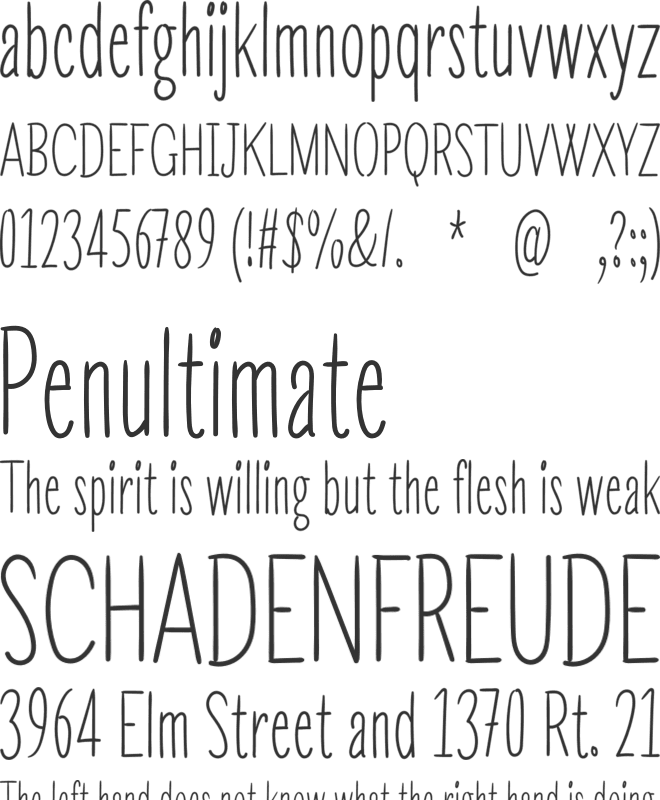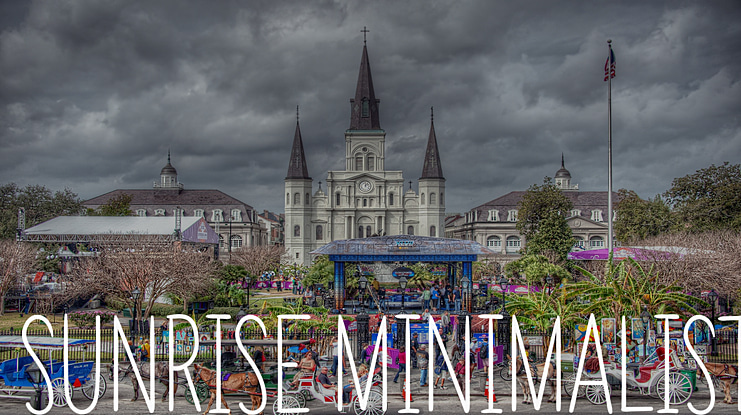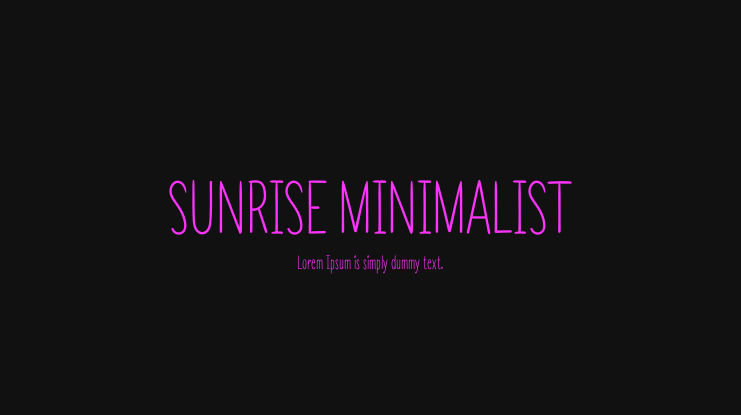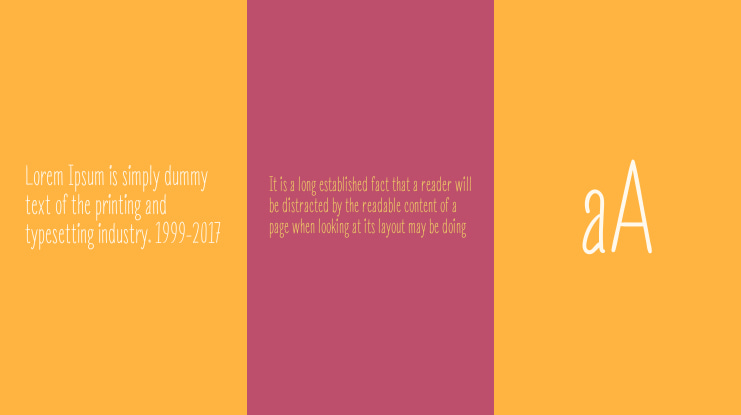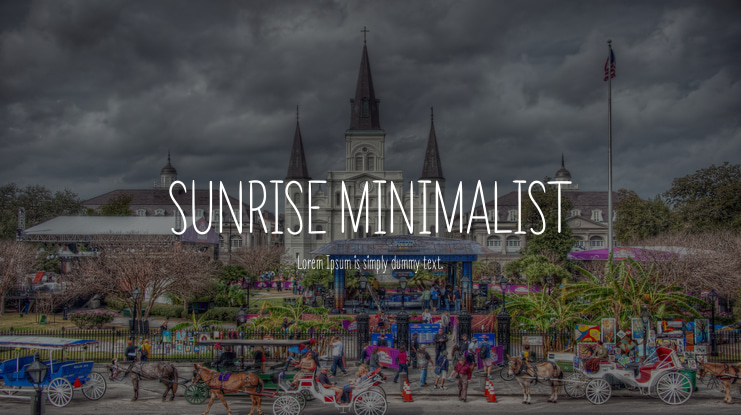
SUNRISE MINIMALIST Font
DETAILS the latest style letters are perfect for wall displays, wedding invitations, social media post logos, advertisements, product packaging, product designs, labels, photography, watermarks, invitations, stationery, and any project that requires taste handwriting.